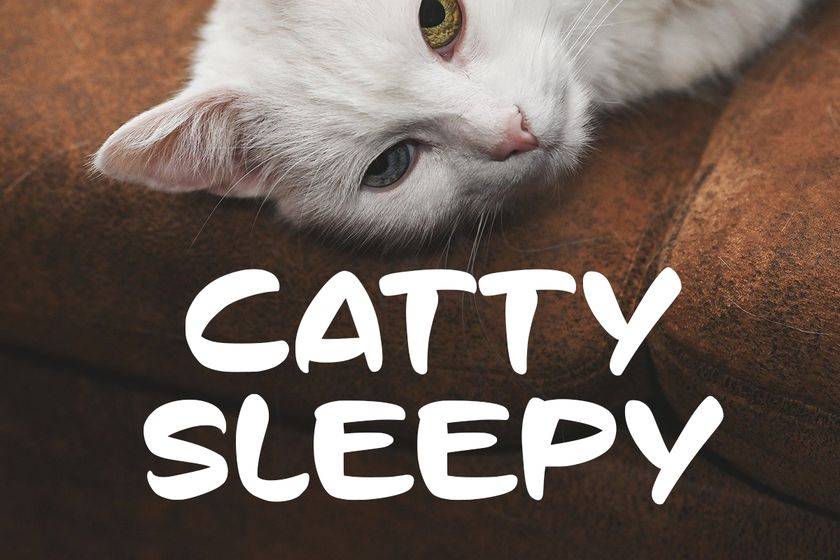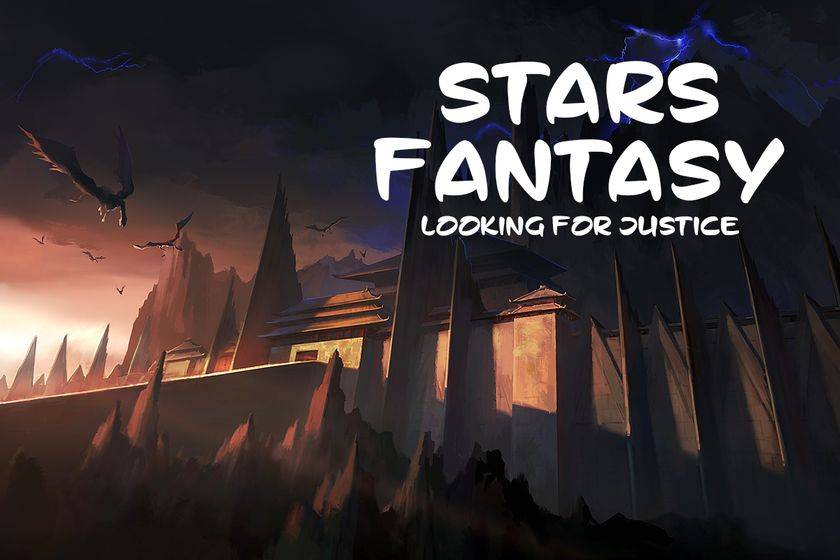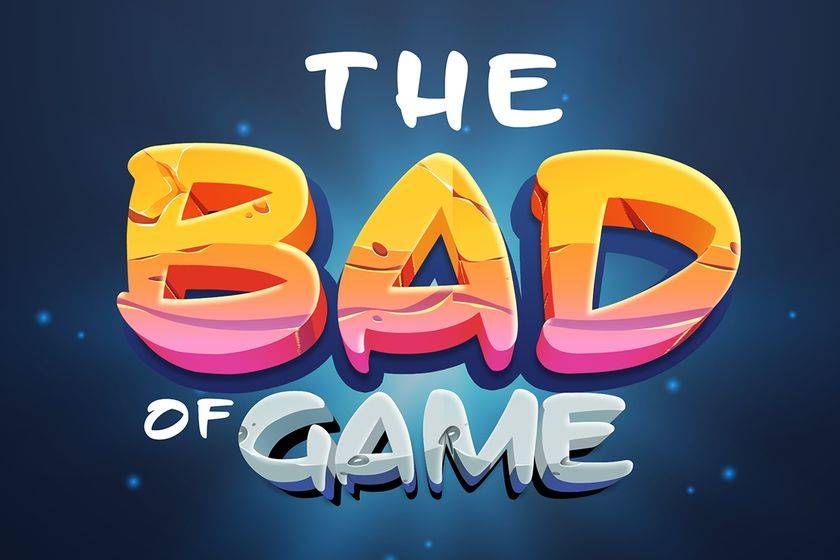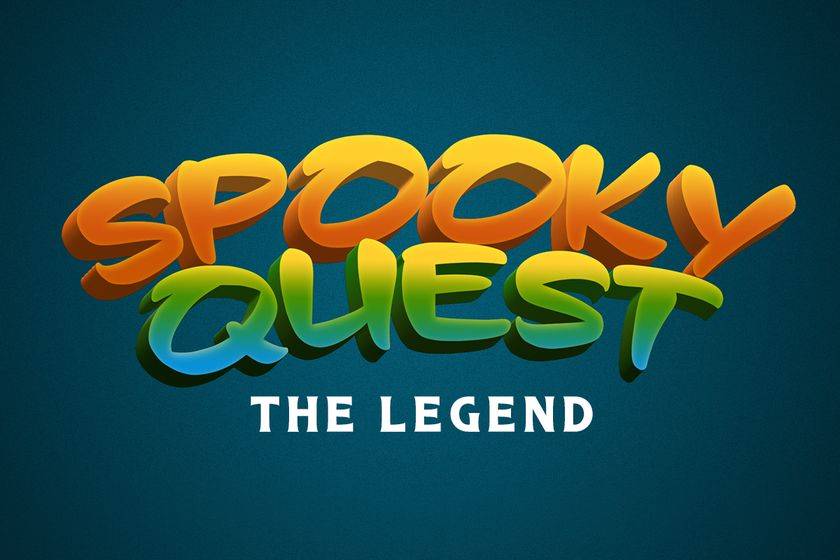
Tazman is a playful, bold sans serif font with a hand-drawn, casual feel. Its thick strokes, rounded edges, and slightly irregular letterforms make it approachable and energetic, perfect for creative projects, informal branding, and eye-catching headlines that want to express fun and friendliness. This font works great where a lively, personal touch is needed without sacrificing readability.
Tazman Font
About Tazman Font